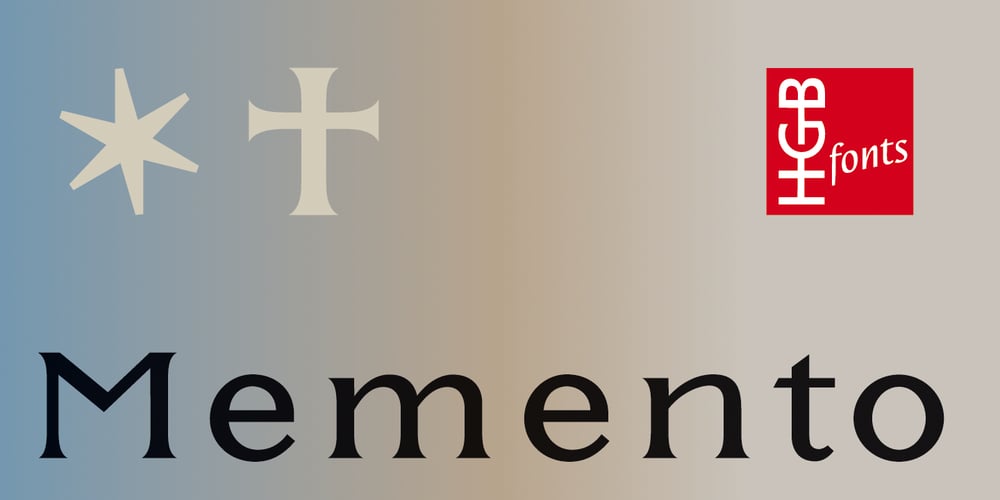
HGB Memento
HGB Memento font
HGB Memento Font Family was designed by Hellmut G. Bomm and published by HGB fonts. HGB Memento contains 1 styles and family package options. HGB Memento was designed to replace 12 bronze plaques with the names of those who died in World War I. The 12 plaques were stolen in 2016. Stone tablets were made on which the original writing was engraved using sandblasting. Memento is therefore suitable for commemorative plaques and for texts of a sacred nature. Extremely short ascenders and descenders allow very narrow lines. The design language of the Memento comes from the 1920s with echoes of Art Nouveau and Art Deco.